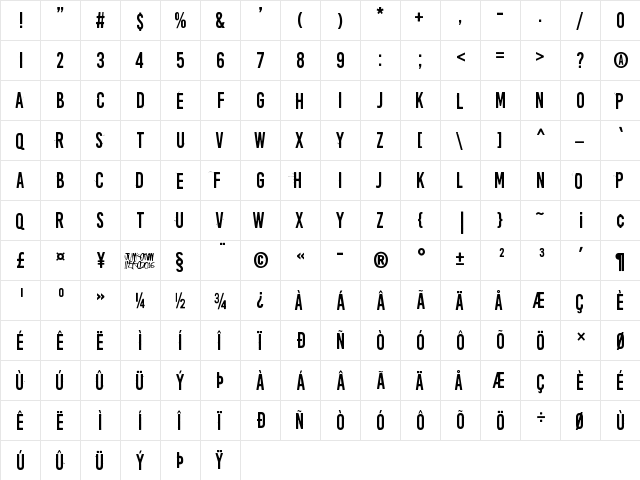
April Fools' Day Regular
Design Context for April Fools' Day Typeface
April Fools' Day takes a measured approach to typography — its balanced proportions and neutral character make it a reliable workhorse for both digital and print work.